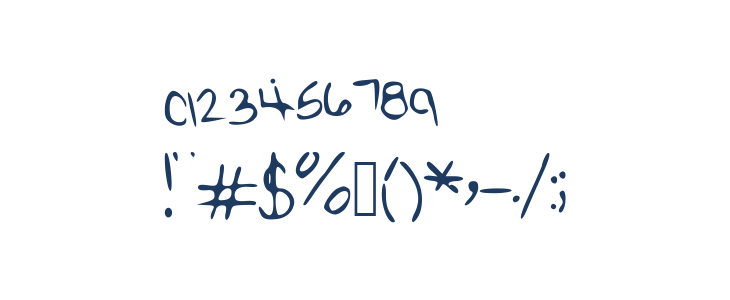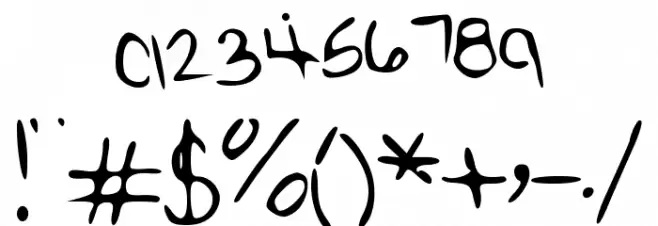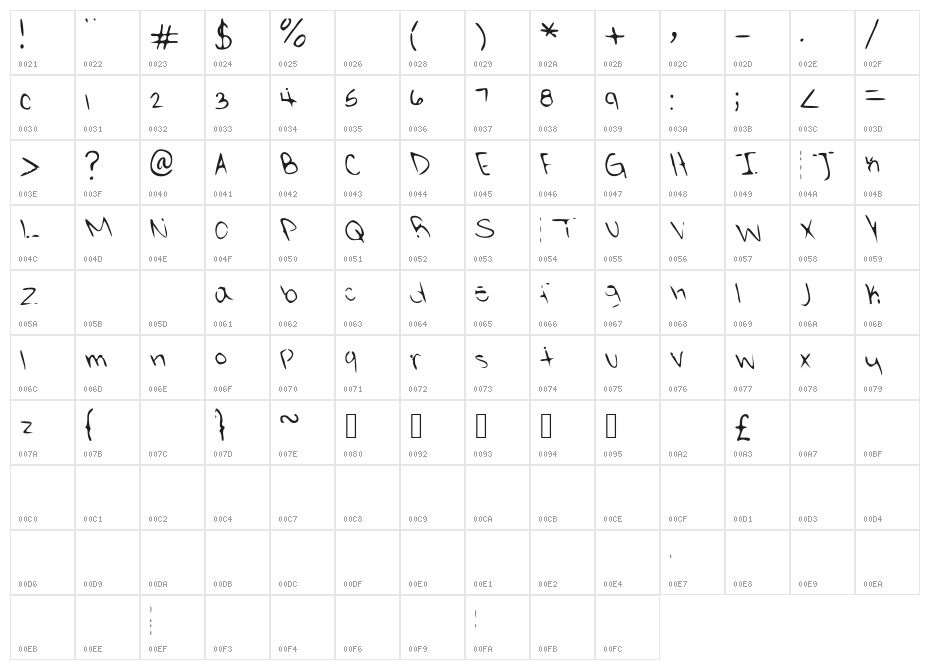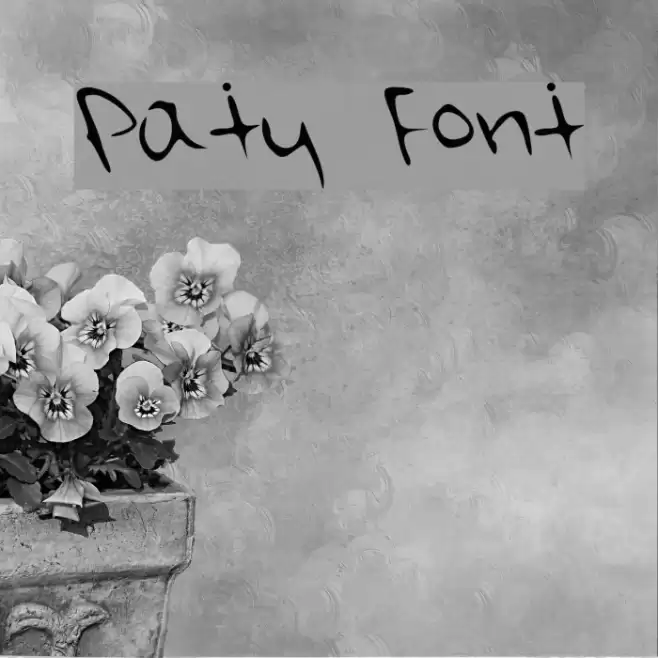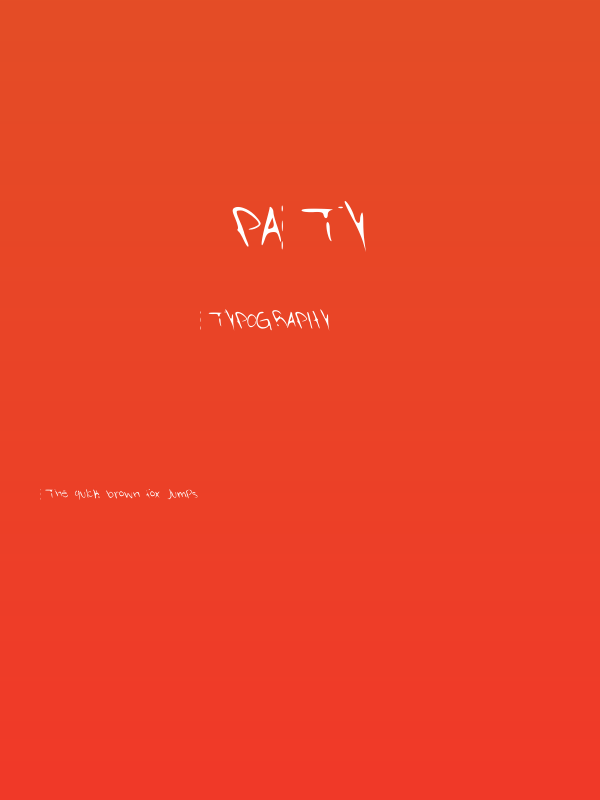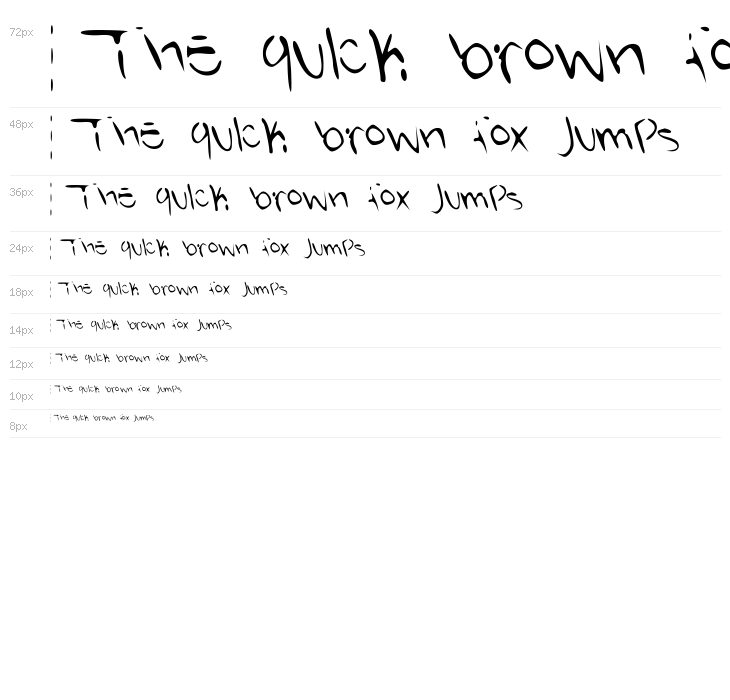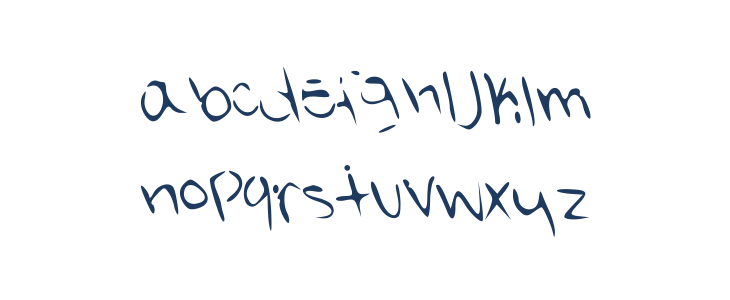
Paty Font
Paty Description
This font exhibits a dynamic and expressive style, characterized by its irregular, hand-drawn appearance. The letters have a playful and artistic flair, with varying stroke thicknesses that create a sense of movement and energy. The uppercase and lowercase letters maintain a consistent style, with some characters featuring exaggerated curves and angles. The numbers and special characters follow the same whimsical design, making the font suitable for creative and informal projects. Its unique style captures attention and adds a personal touch to any design.
| Use Case | Logos, Posters, Creative projects |
| Proposed Projects | Ideal for artistic projects, children's books, creative posters, and informal branding. |